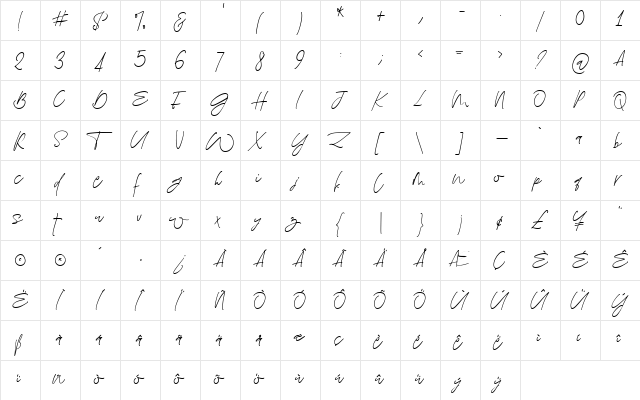
The Twenties Regular
| Foundry | Ayca Atalay |
| Designer | Ayca Atalay |
Design Context for The Twenties Typeface
The Twenties is a composed and adaptable typeface that performs quietly and consistently across a wide range of design contexts.